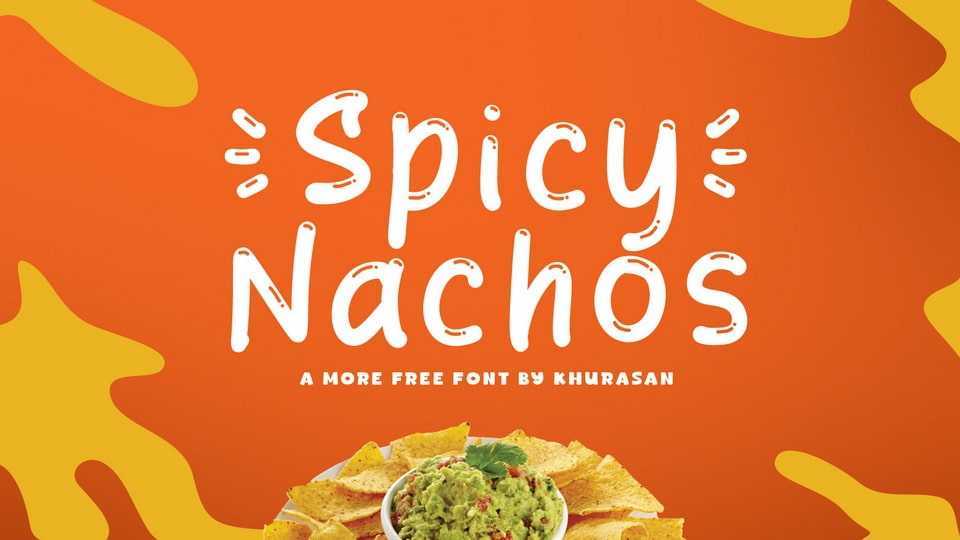
Download Spicy Nachos font, a hand-drawn typeface that infuses your designs with a jovial and funny character. This endearing typeface captures the essence of cheerful scribbles and whimsical sketches.